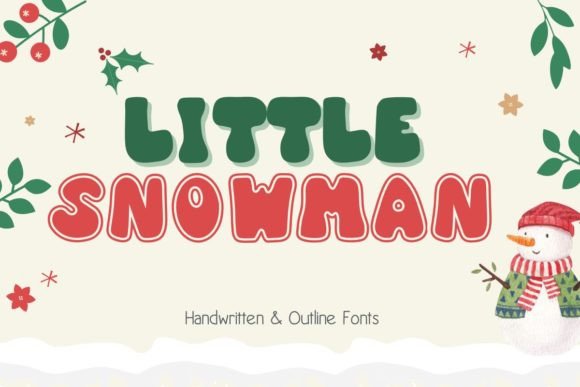
Little Snowman: A Festive Font for Creative Expression
In the world of typography, fonts play a crucial role in conveying tone, emotion, and identity. Among the many typefaces available, Little Snowman stands out as a unique and charming option that blends whimsy with functionality. This display font, designed with a casual and adorable aesthetic, has found its way into various creative projects, especially those with a holiday or playful theme. Whether you're designing a greeting card, a marketing campaign, or a personal project, Little Snowman offers a distinctive visual language that can elevate your work.
The appeal of Little Snowman lies in its ability to evoke a sense of warmth and joy. Its rounded shapes and gentle curves give it a soft, approachable feel that resonates with audiences looking for something more than just standard typography. This font is particularly well-suited for designs that aim to communicate a sense of fun, nostalgia, or celebration. For instance, it's often used in Christmas-related graphics, where its playful style complements the festive spirit.
Characteristics of Little Snowman
Little Snowman is characterized by its friendly and informal appearance. The letterforms are slightly irregular, giving the font a handcrafted look that feels authentic rather than overly polished. This imperfection adds to the charm, making it ideal for projects that want to convey a sense of personality and individuality. The font also features a range of stylistic alternates, allowing designers to customize their output and create a more dynamic visual experience.
One of the standout features of Little Snowman is its versatility. While it’s often associated with holiday themes, it can be adapted for a variety of other contexts. For example, it works well in children’s books, where its playful style can engage young readers. It can also be used in branding for businesses that want to project a friendly and approachable image. The font’s readability is another important factor; despite its decorative elements, it remains legible at various sizes, making it suitable for both large headlines and smaller text blocks.
Practical Applications of Little Snowman
Designers and creators have found numerous ways to incorporate Little Snowman into their work. One common use is in social media content, where eye-catching text can help grab attention. Whether it's a post about a seasonal sale or a fun message to followers, this font can add a touch of personality that sets the content apart. Its adaptability makes it a go-to choice for those looking to create visually engaging posts without sacrificing clarity.
Another popular application is in print materials such as posters, flyers, and brochures. In these formats, Little Snowman can be used to highlight key messages or create a cohesive visual theme. For instance, a local business might use the font on a holiday-themed flyer to promote special offers, combining the font’s festive appeal with practical information. This blend of aesthetics and utility makes it a valuable tool for designers working on a wide range of projects.
For educators and students, Little Snowman can be a useful resource in classroom settings. Teachers might use it to create engaging lesson plans or activity sheets that capture students’ interest. Its friendly look can make learning more enjoyable, especially for younger age groups. Additionally, it can be used in presentations or reports to add a creative element that breaks up the monotony of standard text.
Considerations When Using Little Snowman
While Little Snowman offers many benefits, there are some considerations to keep in mind when using it. One of the most important is the context in which it’s applied. Because of its playful nature, it may not be appropriate for formal or professional settings where a more serious tone is required. Designers should carefully evaluate whether the font aligns with the overall message and purpose of their work.
Finally, it’s worth noting that while Little Snowman is a display font, it may not be the best choice for long blocks of text. Its decorative elements can become distracting if used excessively, so it’s recommended to use it in moderation. Designers should experiment with different sizes and placements to find the optimal balance between visual appeal and readability.
Why Choose Little Snowman?
There are many fonts available, but Little Snowman offers a unique combination of charm and functionality that sets it apart. Its ability to convey emotion and personality makes it a valuable asset for designers looking to create memorable and engaging visuals. Whether it's for a holiday project, a brand identity, or a creative expression, this font provides a fresh and inviting alternative to more traditional typefaces.
In summary, Little Snowman is more than just a font—it’s a tool for creativity and self-expression. Its friendly and adaptable nature makes it suitable for a wide range of applications, from holiday graphics to educational materials. With careful consideration and thoughtful implementation, this font can enhance any design project and bring a touch of warmth and joy to the visual experience.